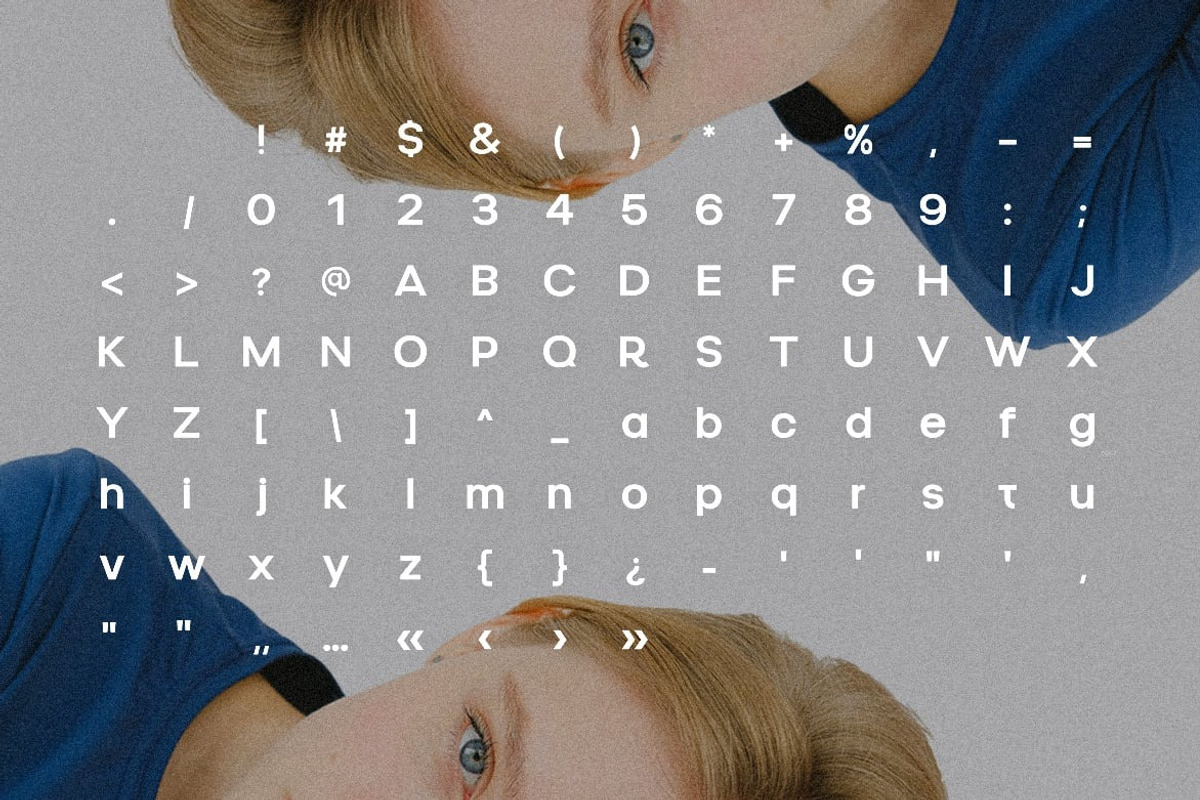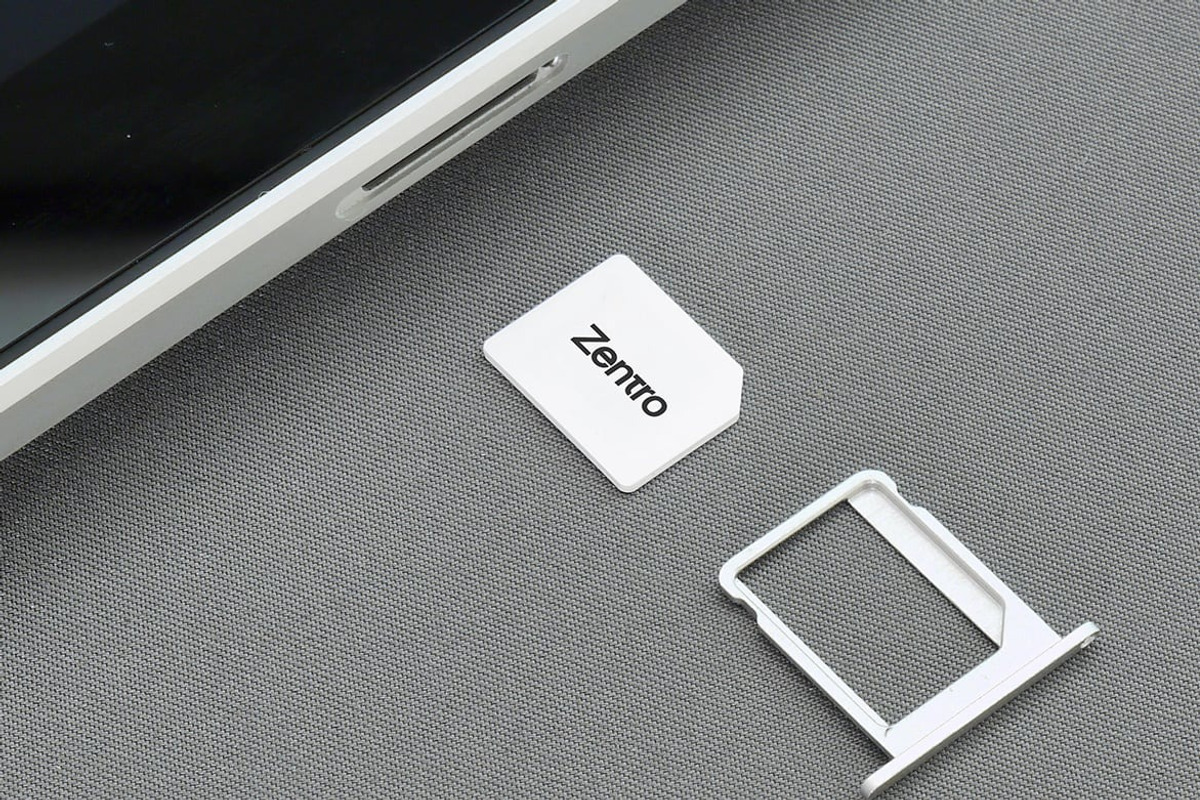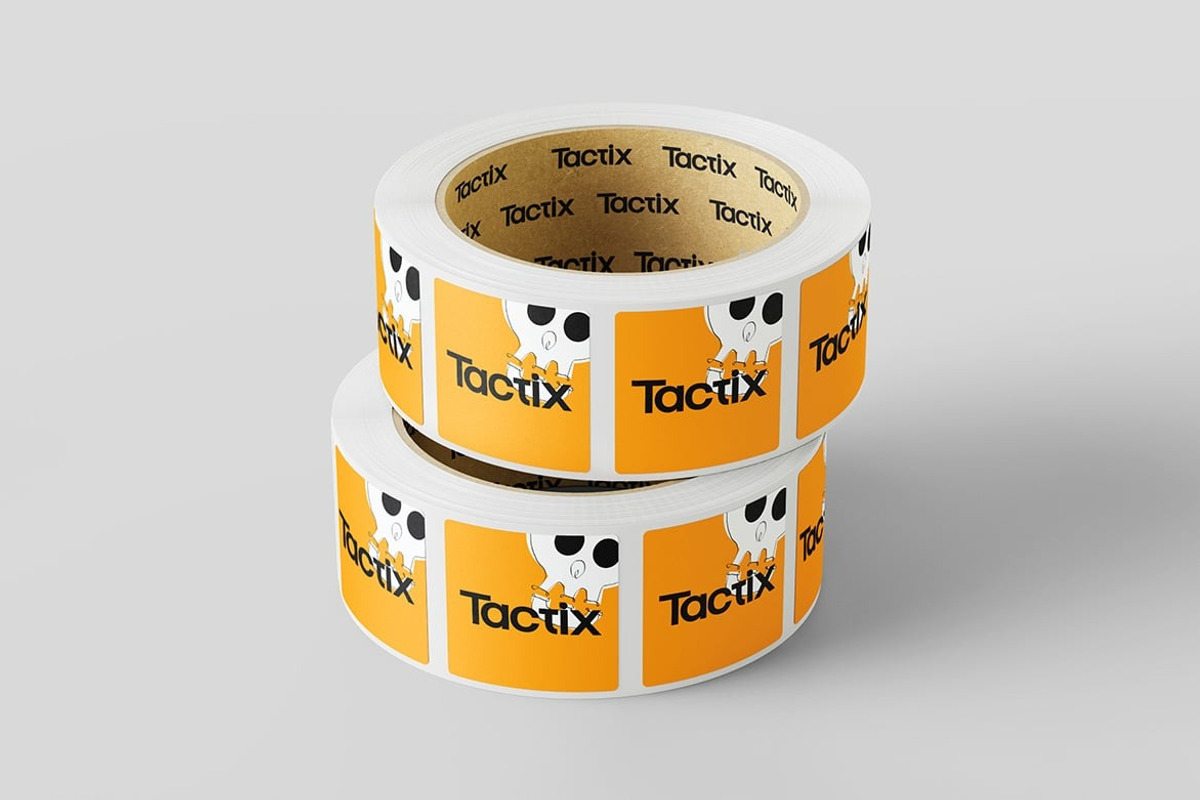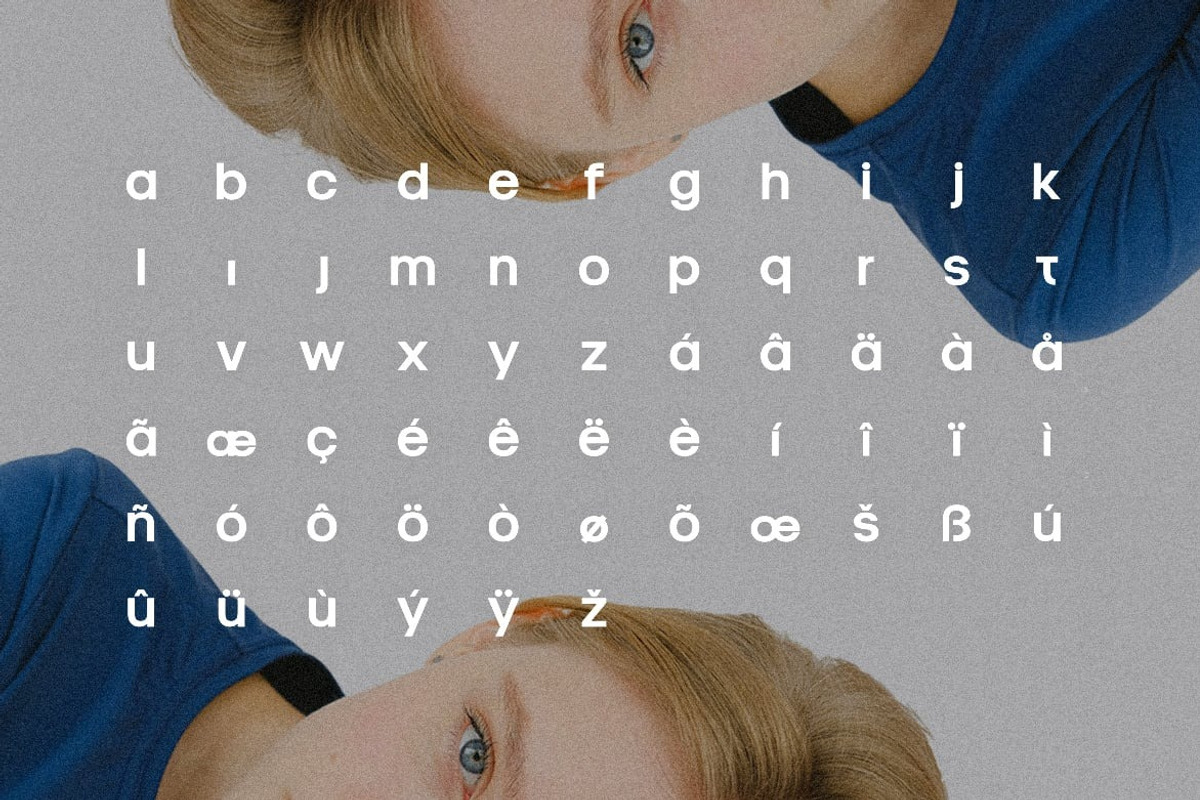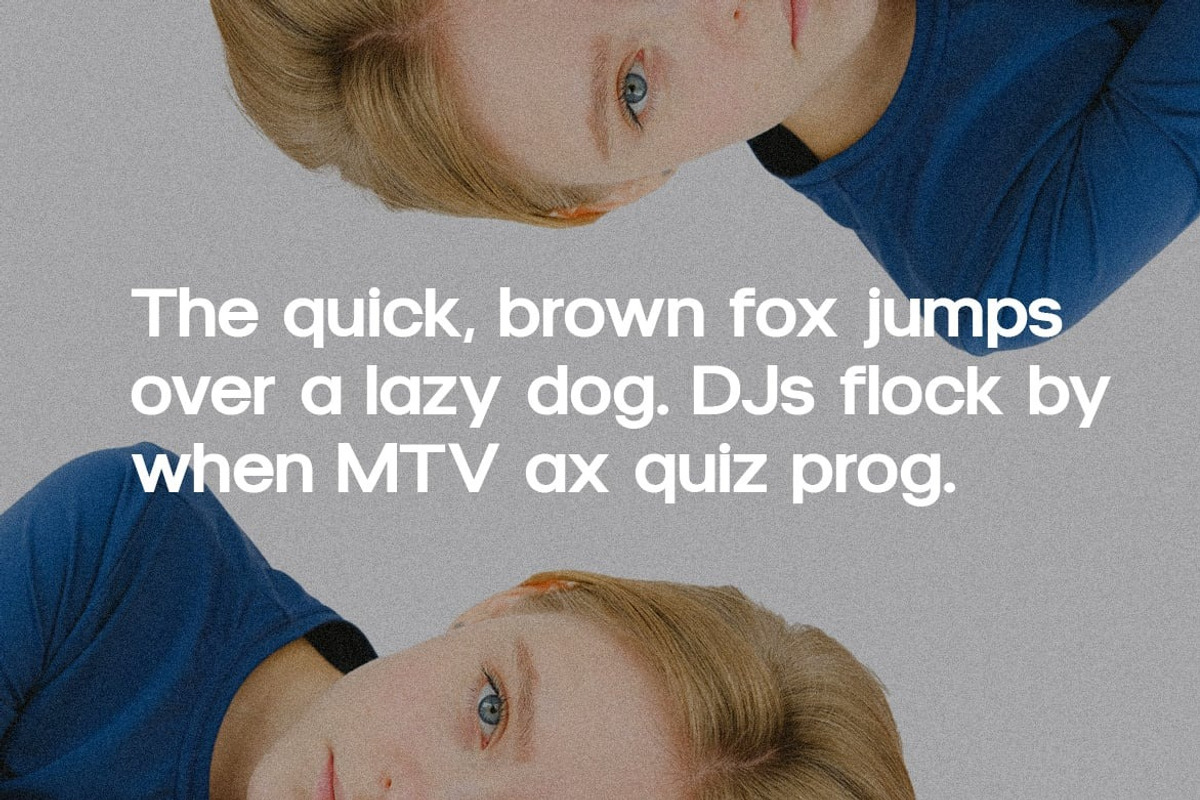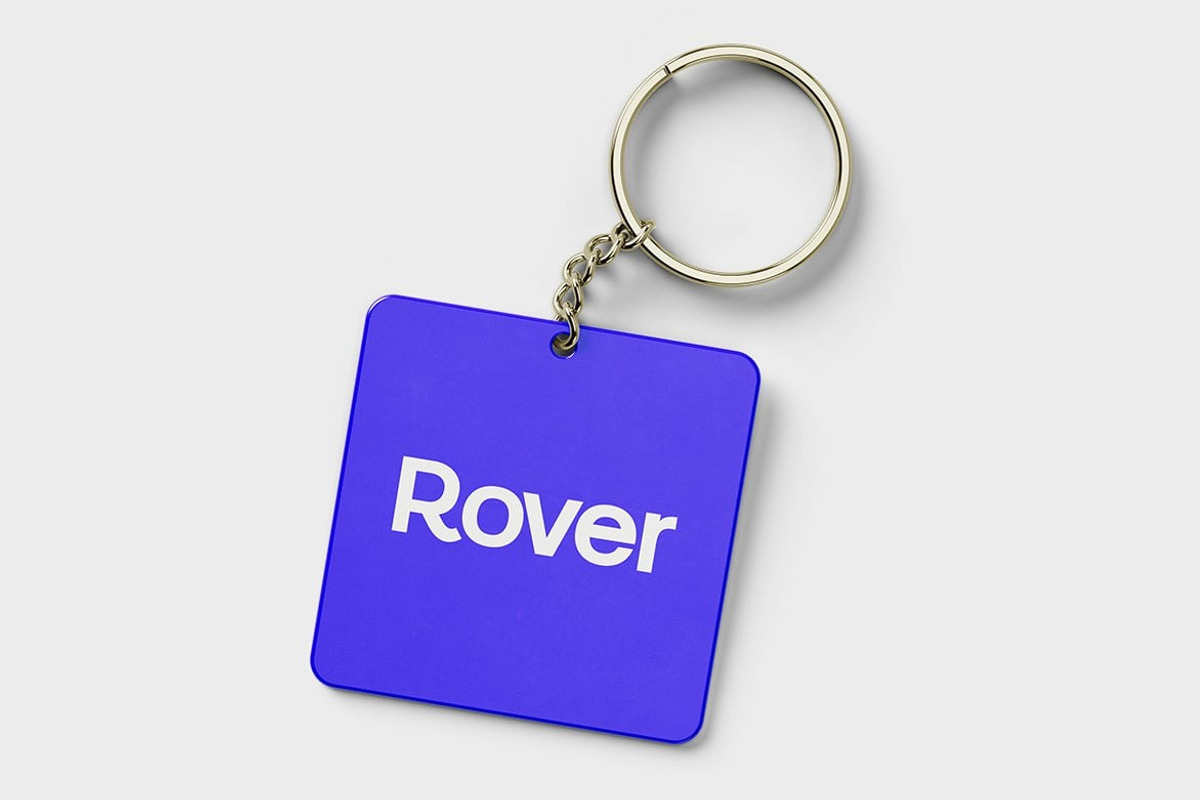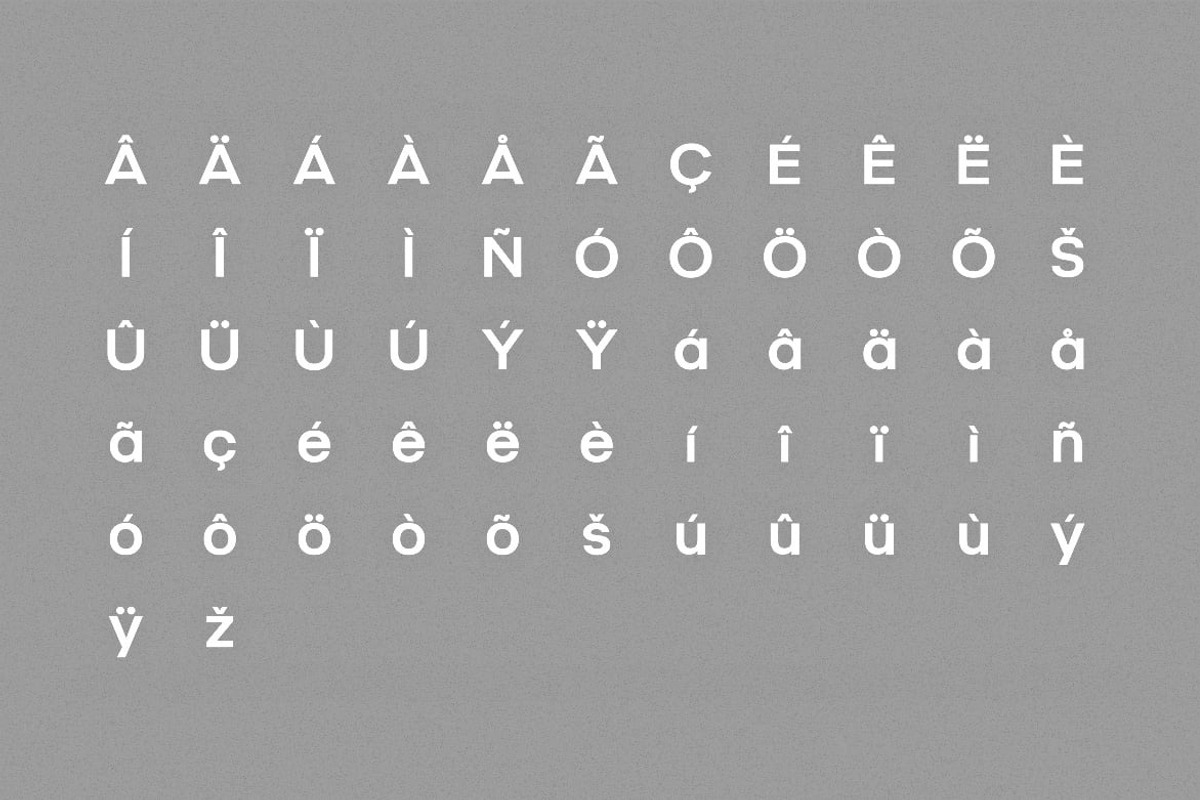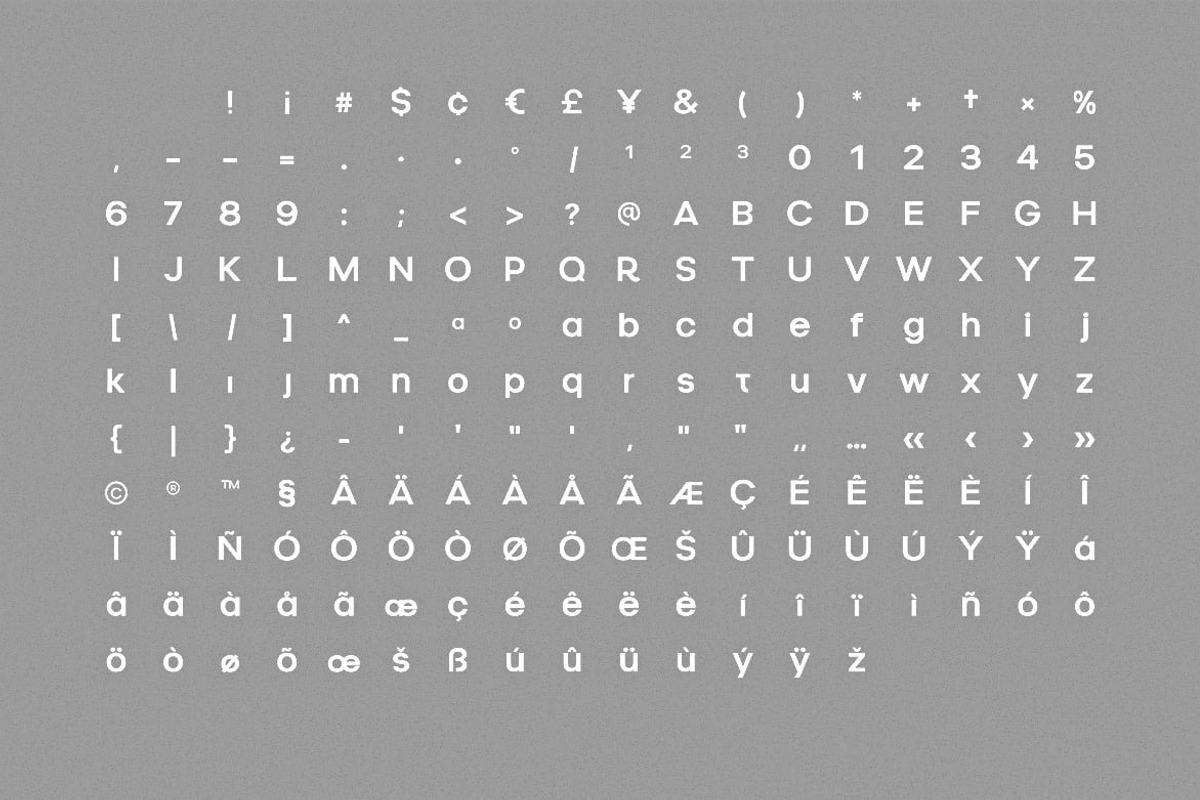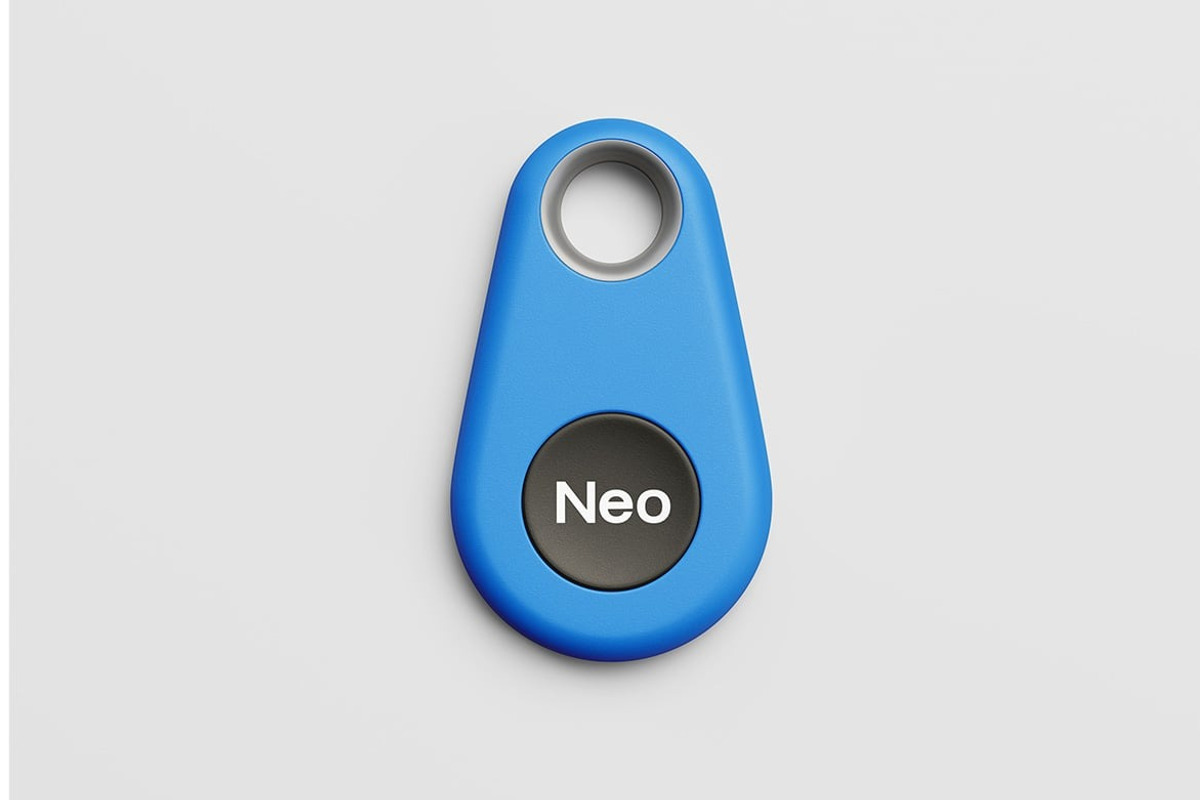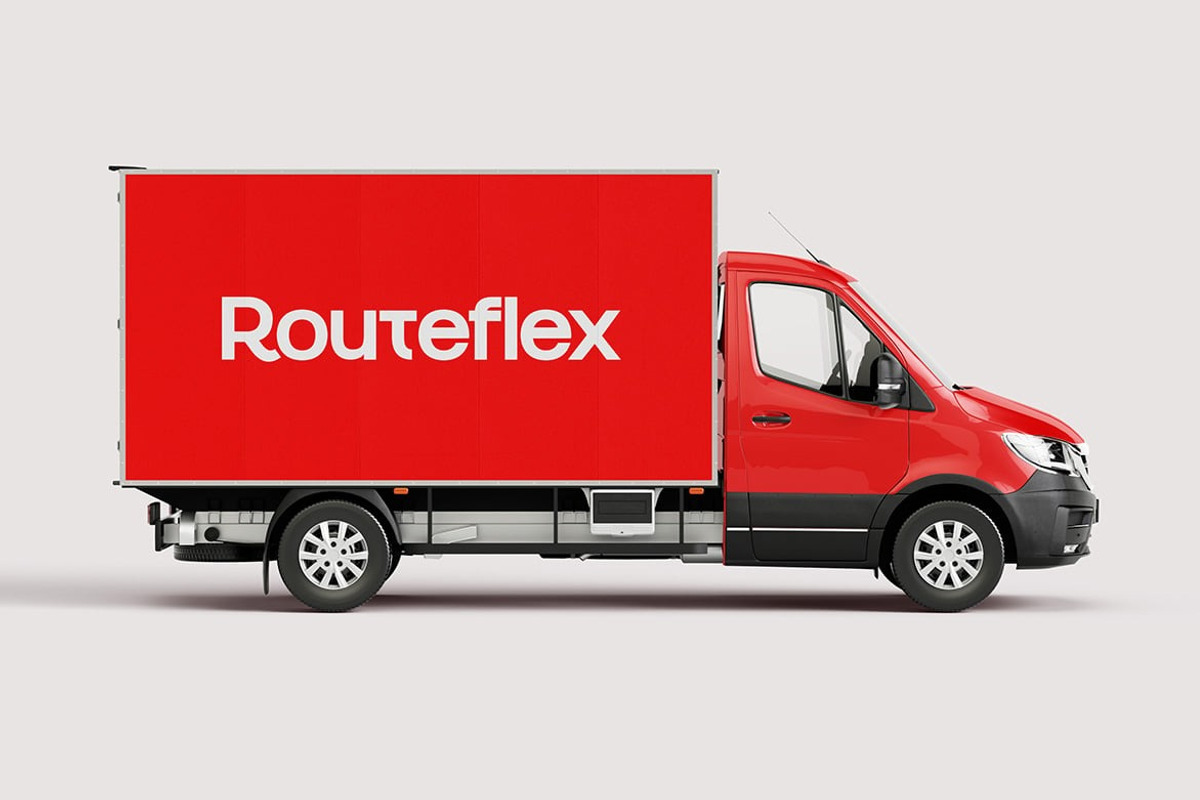
Relieo - Display
Relieo is a bold and modern display sans-serif font designed for high-impact visuals. With its clean lines, geometric proportions, and striking presence, Relieo is perfect for branding, headlines, social media, and editorial design. It's contemporary aesthetic balances professionalism with creativity, making it versatile for both digital and print projects. Featuring uppercase, lowercase, numbers, and punctuation, Relieo ensures clarity and style in every composition.